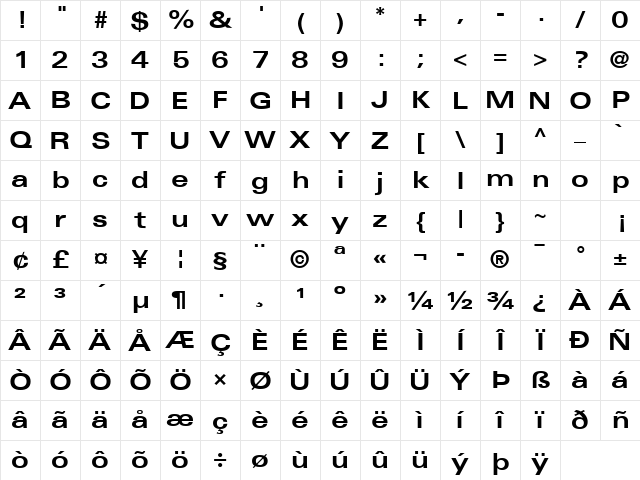
Univers ExtendedPS Bold
Design Context for Univers ExtendedPS
Univers ExtendedPS is a composed and adaptable typeface that performs quietly and consistently across a wide range of design contexts. Its bold stroke weight gives it real presence on the page.
Pro Tip: Use Univers ExtendedPS in both headline and body roles to test its range before committing to a single application.